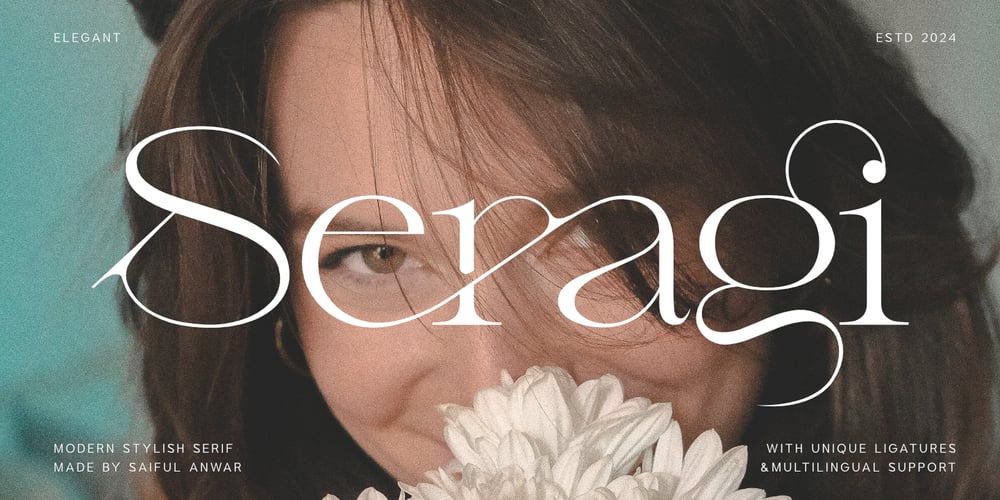
Seragi Font Family was designed by Saiful Anwar and published by Sealoung. Seragi contains 1 styles and family package options. Introducing Seragi, a serif font that embodies luxury and cinematic elegance. Perfectly tailored for sophisticated and high-end designs, Seragi adds a touch of class and refinement to any project.Seragi Font Features : Luxury Design: A luxurious serif style ideal for upscale and sophisticated projects. Cinematic Appeal: Perfect for film titles, movie posters, and dramatic visual content. Versatile Usage: Suitable for branding, editorial layouts, elegant invitations, and more. Inspirational Previews: Includes sample designs to inspire your creative projects. Elevate your designs with Seragi, the luxury serif font that exudes sophistication and style. Whether for high-end branding, cinematic projects, or elegant typography, Seragi adds a timeless and refined touch to your work. Make a statement with Seragi and let your designs shine with unparalleled elegance.